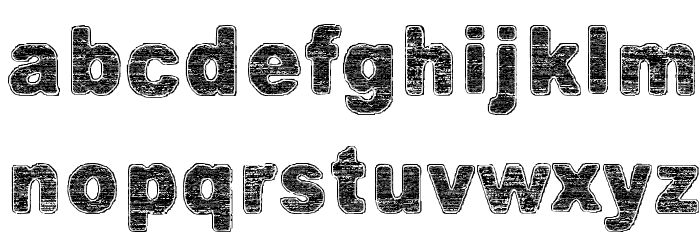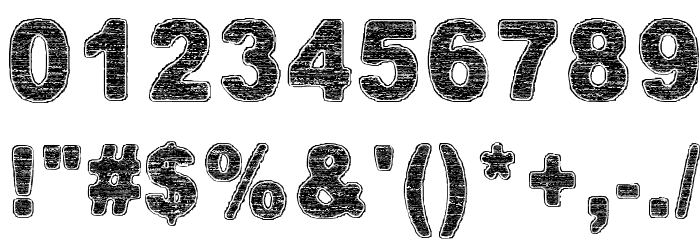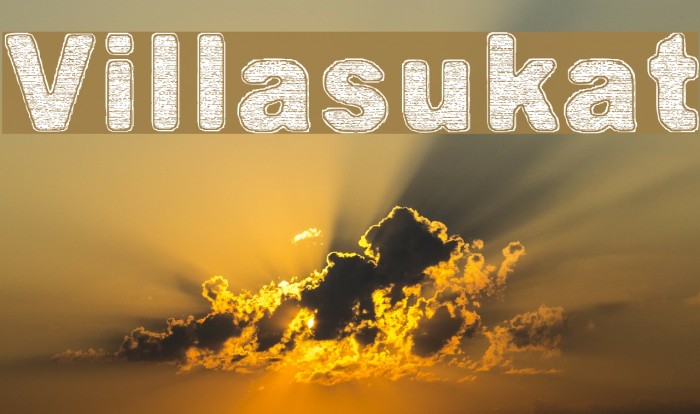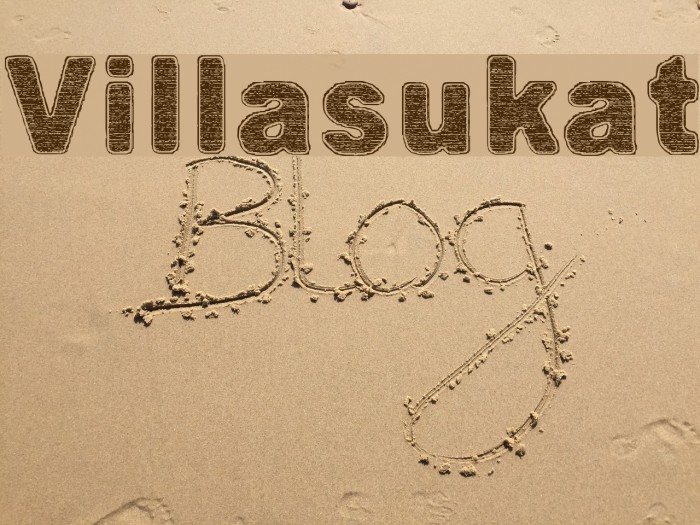
Villasukat Font
This font features a bold, textured style with a distressed appearance, giving it a rugged and vintage feel. The characters are thick and robust, with a slightly uneven surface that adds to the handcrafted look. The uppercase and lowercase letters maintain a consistent weight, while the numbers and special characters follow the same design ethos, ensuring uniformity across all glyphs. The font's unique texture makes it stand out, ideal for projects that require a strong visual impact. Its boldness and texture suggest a sense of strength and durability, making it suitable for creative and artistic applications.
A bold, textured font with a distressed, vintage appearance.
- Font: Villasukat
- Proposed Projects: Ideal for posters, branding, packaging, and any design needing a vintage or rugged aesthetic.
- Overall Style: Vintage